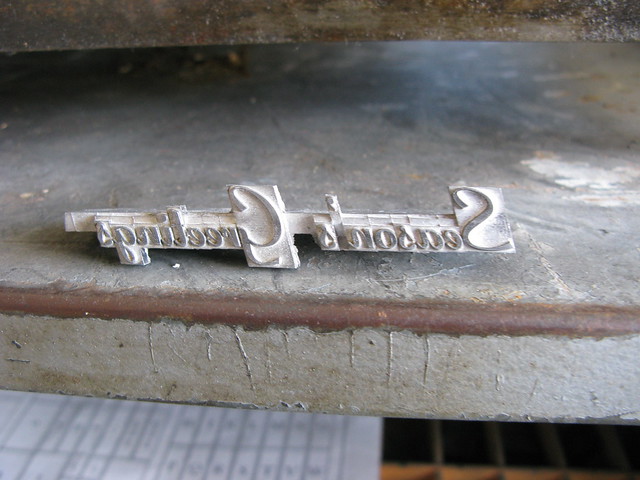
Here's a nice looking seasonal Ludlow slug.
Love the font!
OK, couldn't resist this one.
Wrong apostrophe!
Thanks for those of you who pointed out that the wrong apostrophe had been used on this slug.
They've used the high apostrophe, which is meant to be used among capital letters (eg D'Arcey) instead of the the lower apostrophe for use among lower case letters.
Being an ex-newspaper man I've got to admit that I didn't spot the error, but now it seems glaringly obvious.